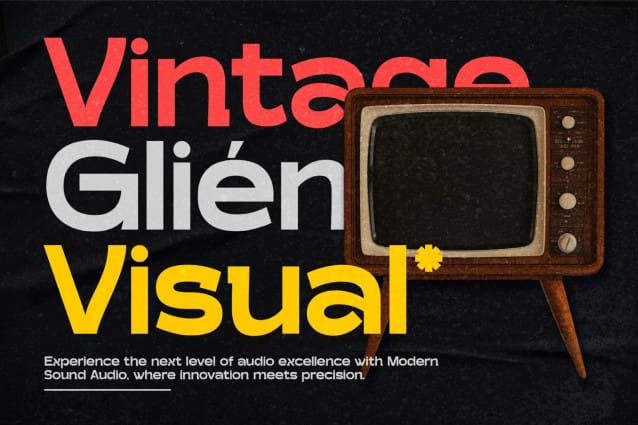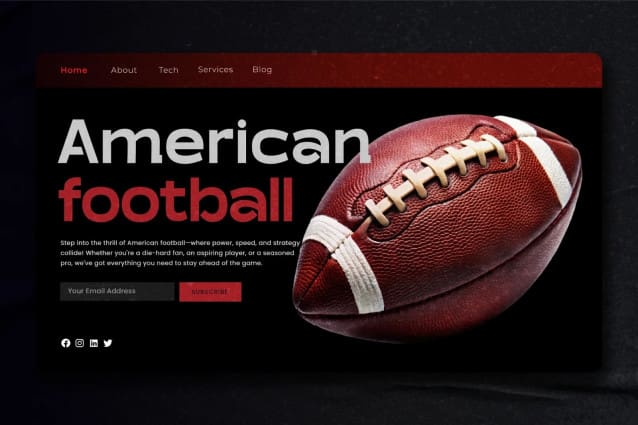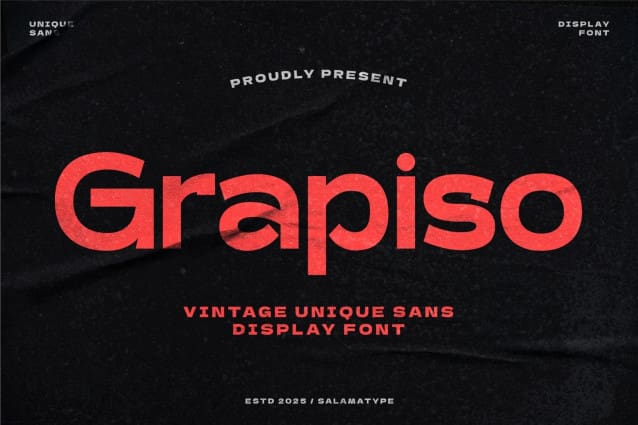
Grapiso Font
Grapiso Font, a sleek and modern sans serif font designed to bring a fresh and distinctive look to your designs. With its clean lines and contemporary style, Grapiso is the perfect choice for those seeking a unique yet professional aesthetic. Ideal for logos, websites, posters, branding, web design, social media advertising, and sports posters.